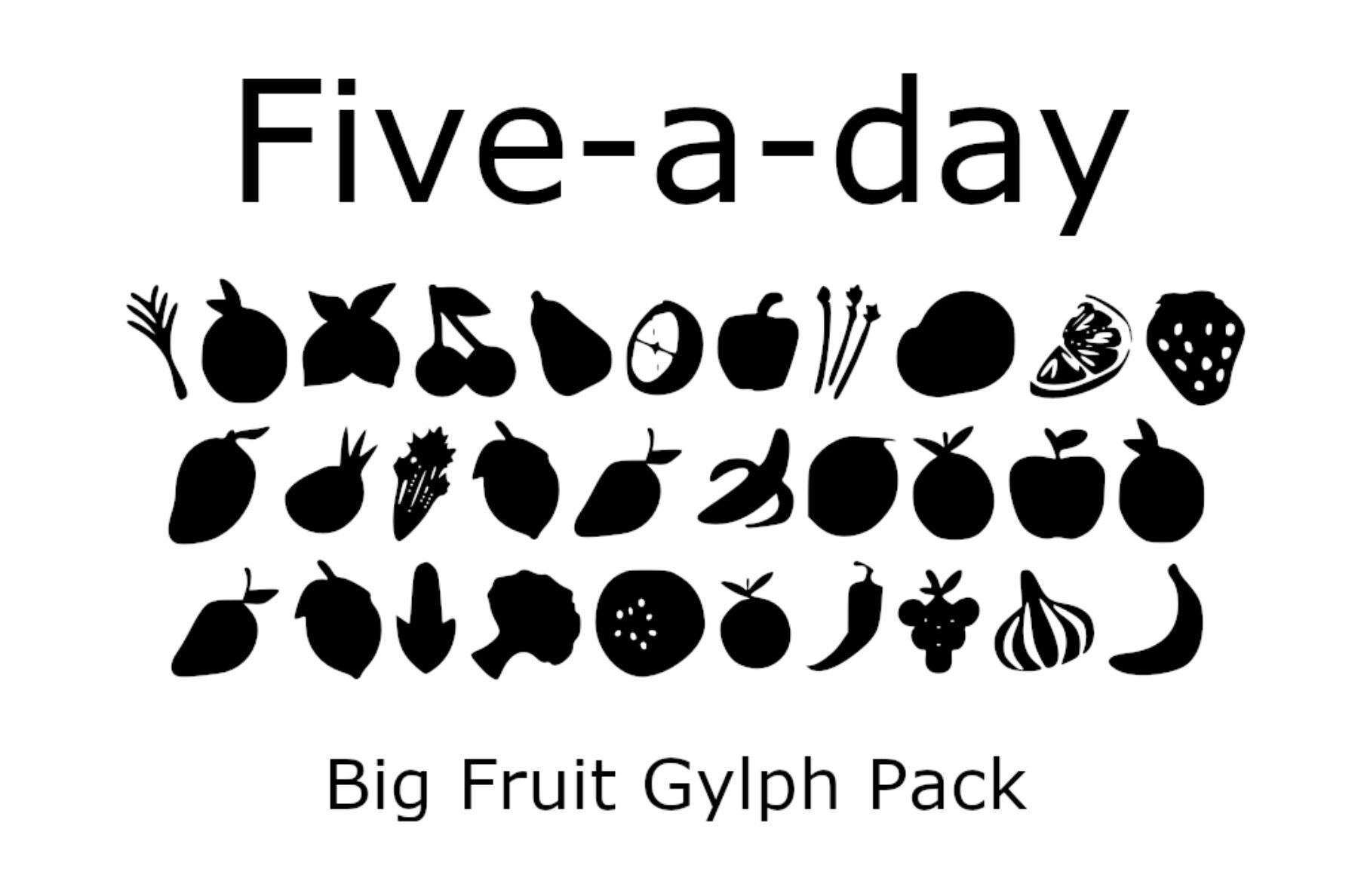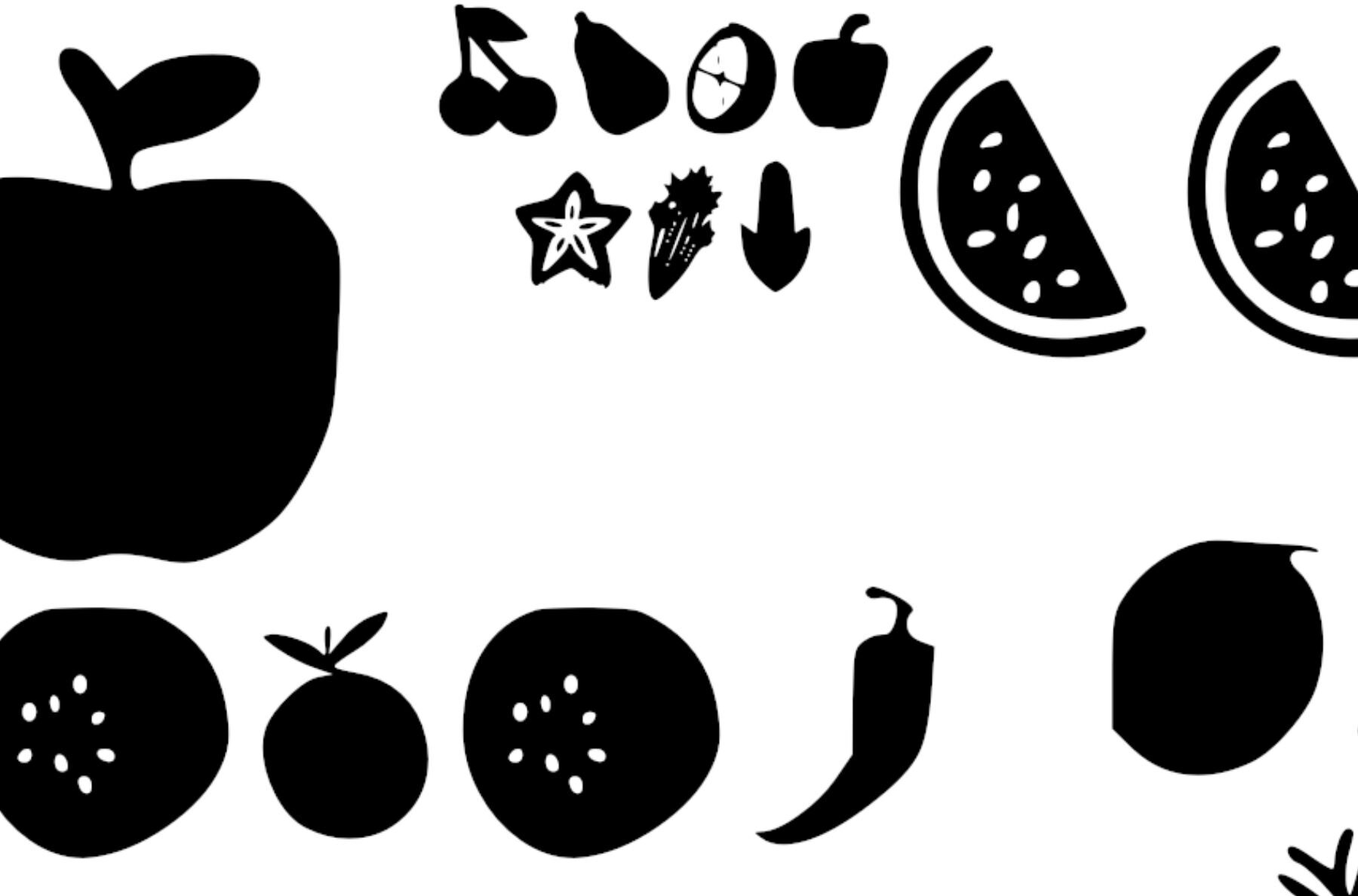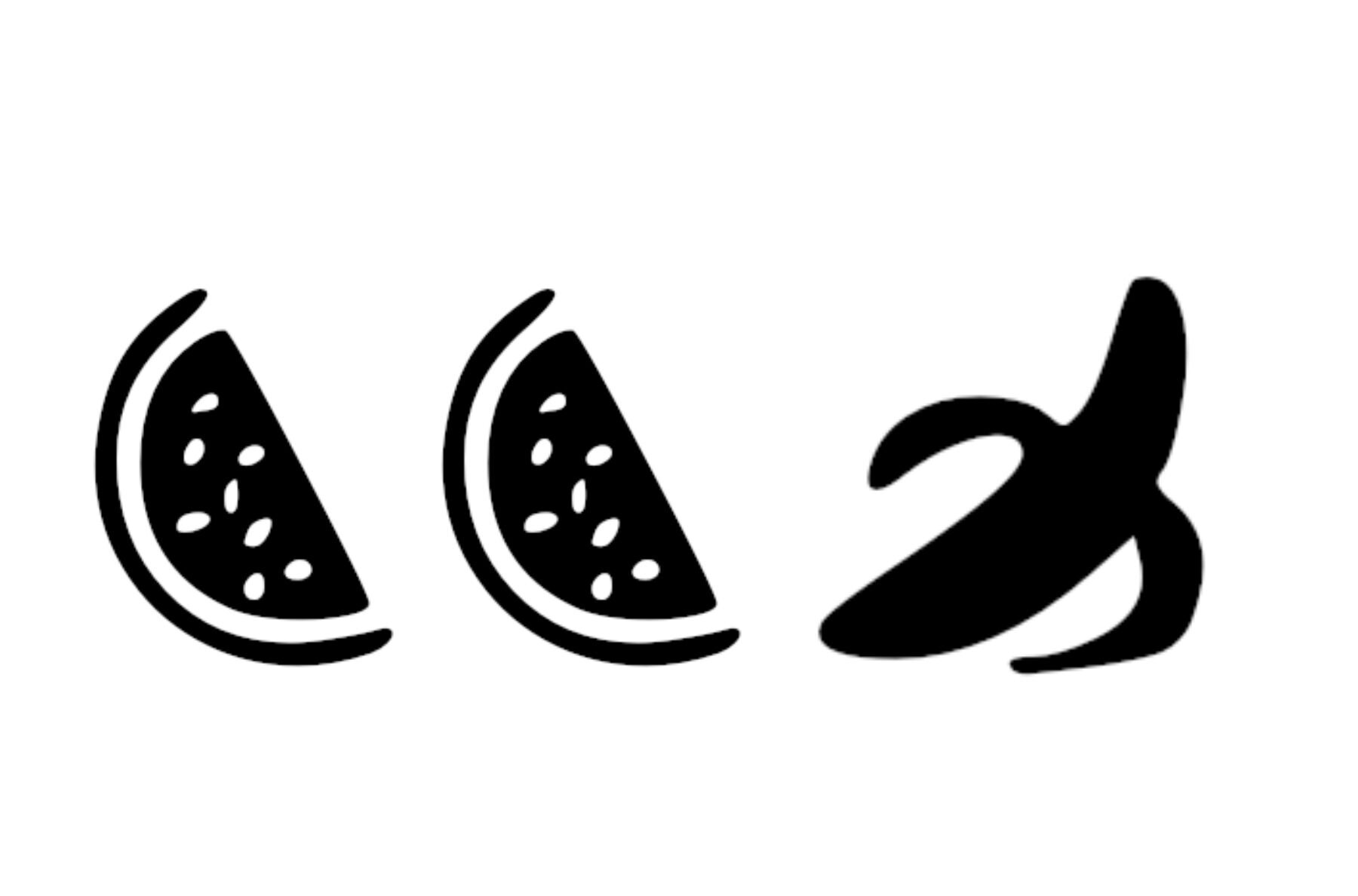
5-a-day Font
Five a day
Introducing 5-a-Day, a vibrant and quirky dingbat font that adds a splash of creativity to your projects. Featuring a delightful array of fruit and vegetable glyphs, this font is ideal for design enthusiasts looking to infuse a playful touch into their work. Whether you're crafting invitations, designing logos, or working on educational materials, 5-a-Day enhances your artistic toolkit with its distinctive charm.5-a-Day Font Collection